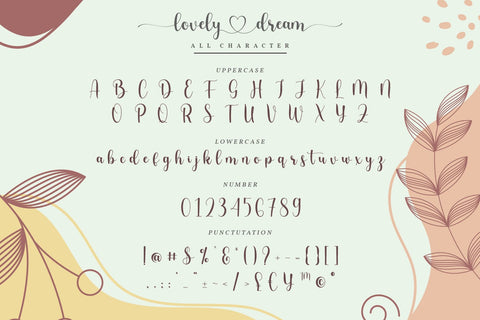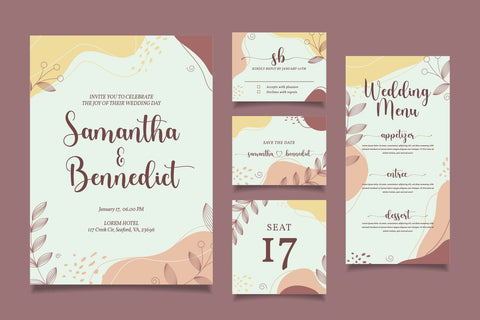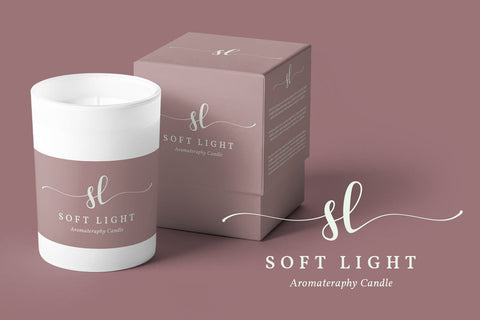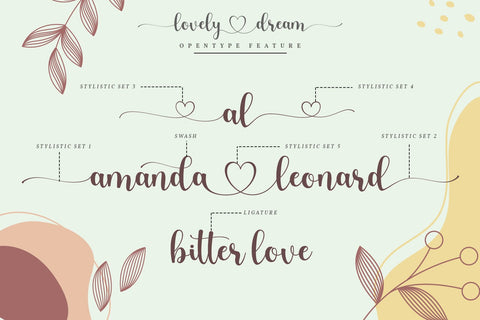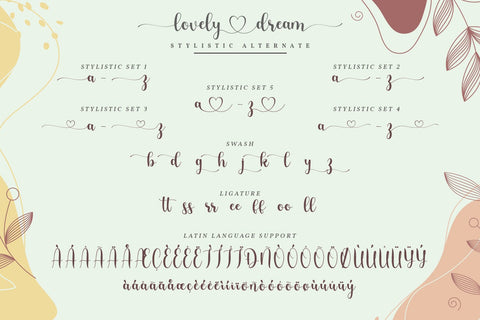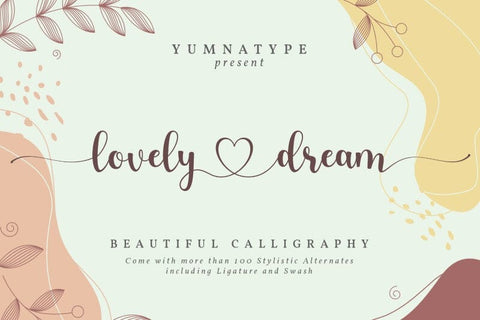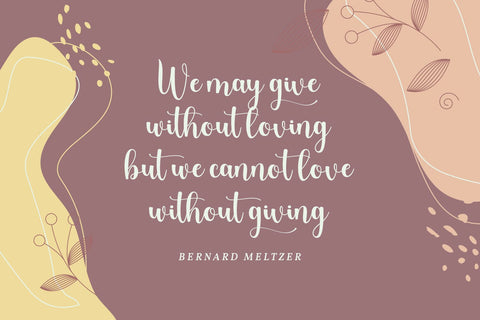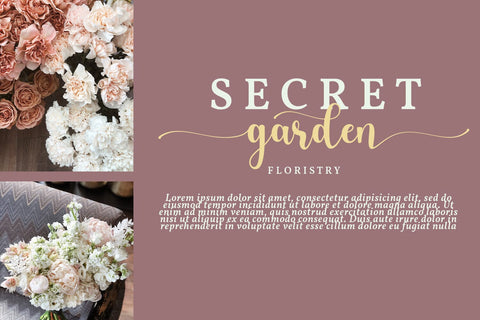
Lovely Dream-Beautiful Calligraphy Font
Lovely Dream is a beautiful script font with a natural and unique design will make your project more beautiful. The font is suitable for your branding project, printing, logos dan wedding.
- Set Stylistics
- Many Swashes
- Beautiful Ligatures